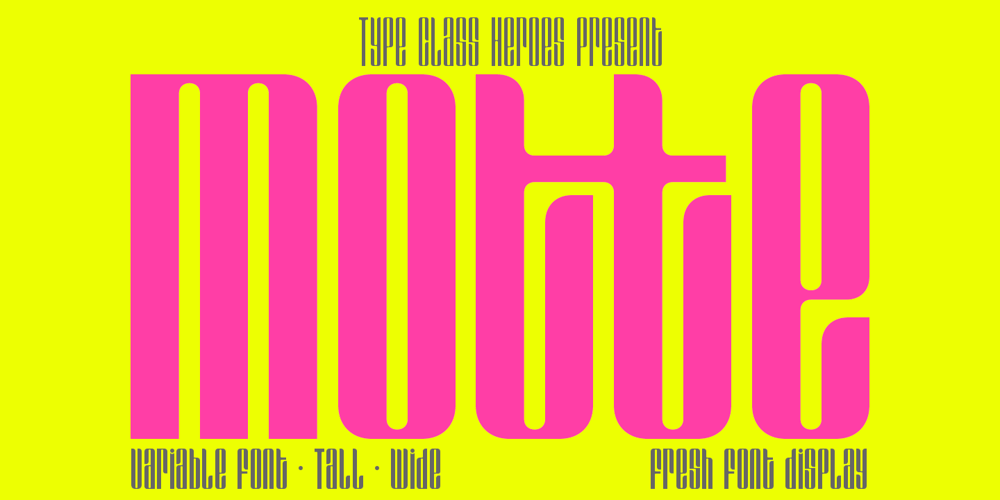
Motte Font Family was designed by Pande Made and published by TypeClassHeroes. Motte contains 18 styles and family package options. Introducing Motte is a tall and wide sans comes with classic casual family to get more stunning. Use this font family for any branding, product packaging, invitation, quotes, t-shirt, label, poster, logo etc.Character Set Uppercase & Lowercase Number & Symbol International Glyphs Ligatures Multilingual support Feel free to drop us a message or shoot me on message any time and follow my shop for upcoming updates